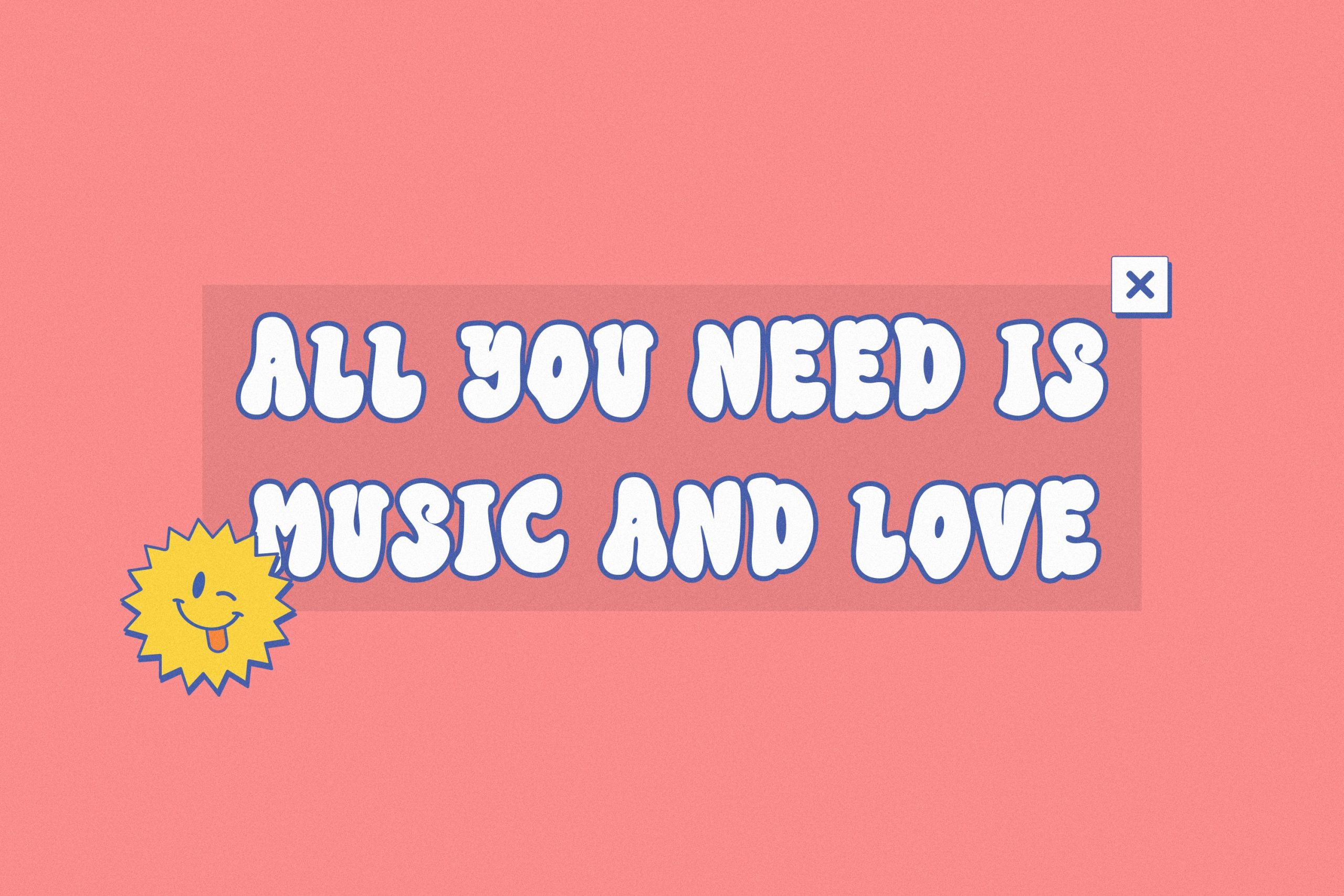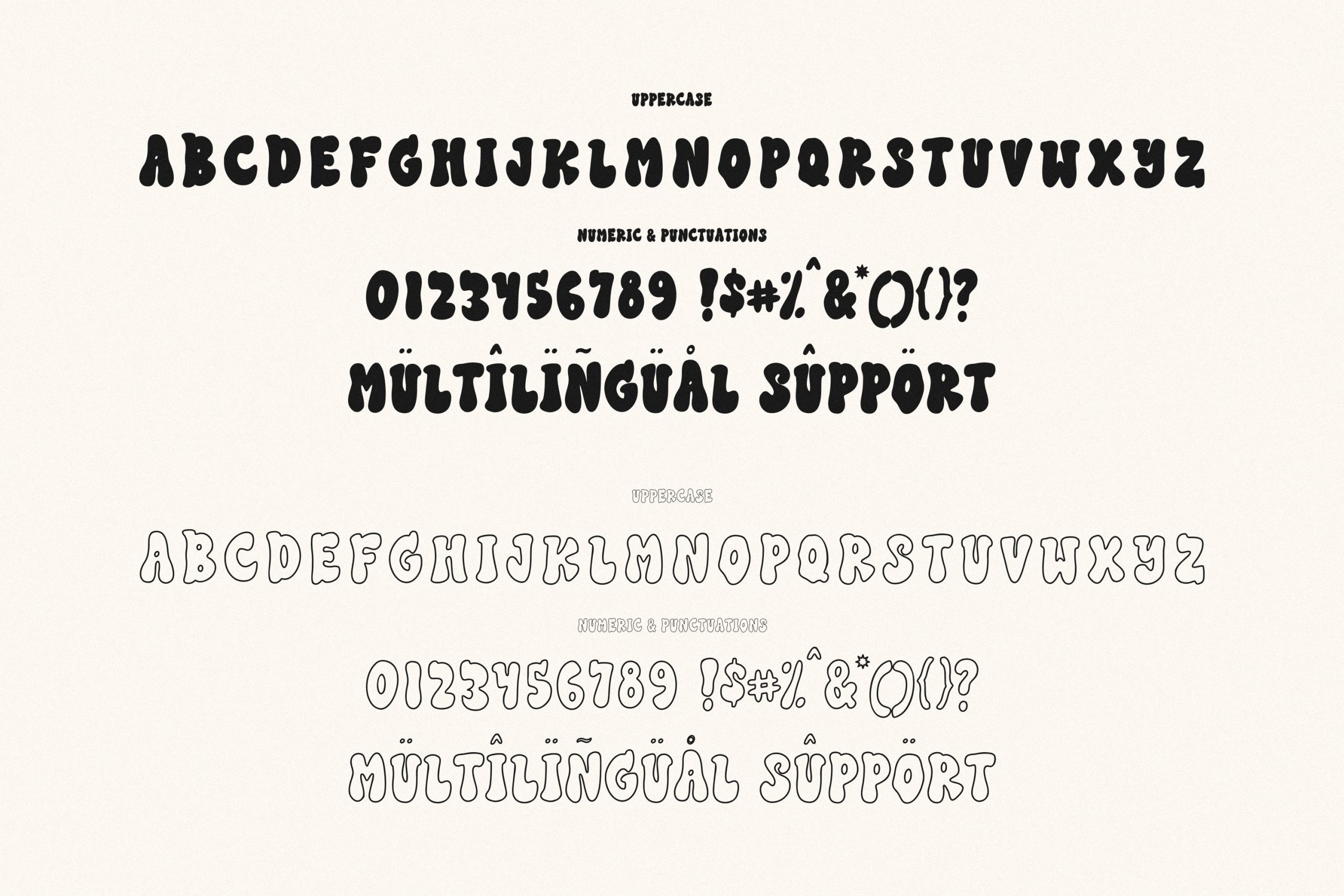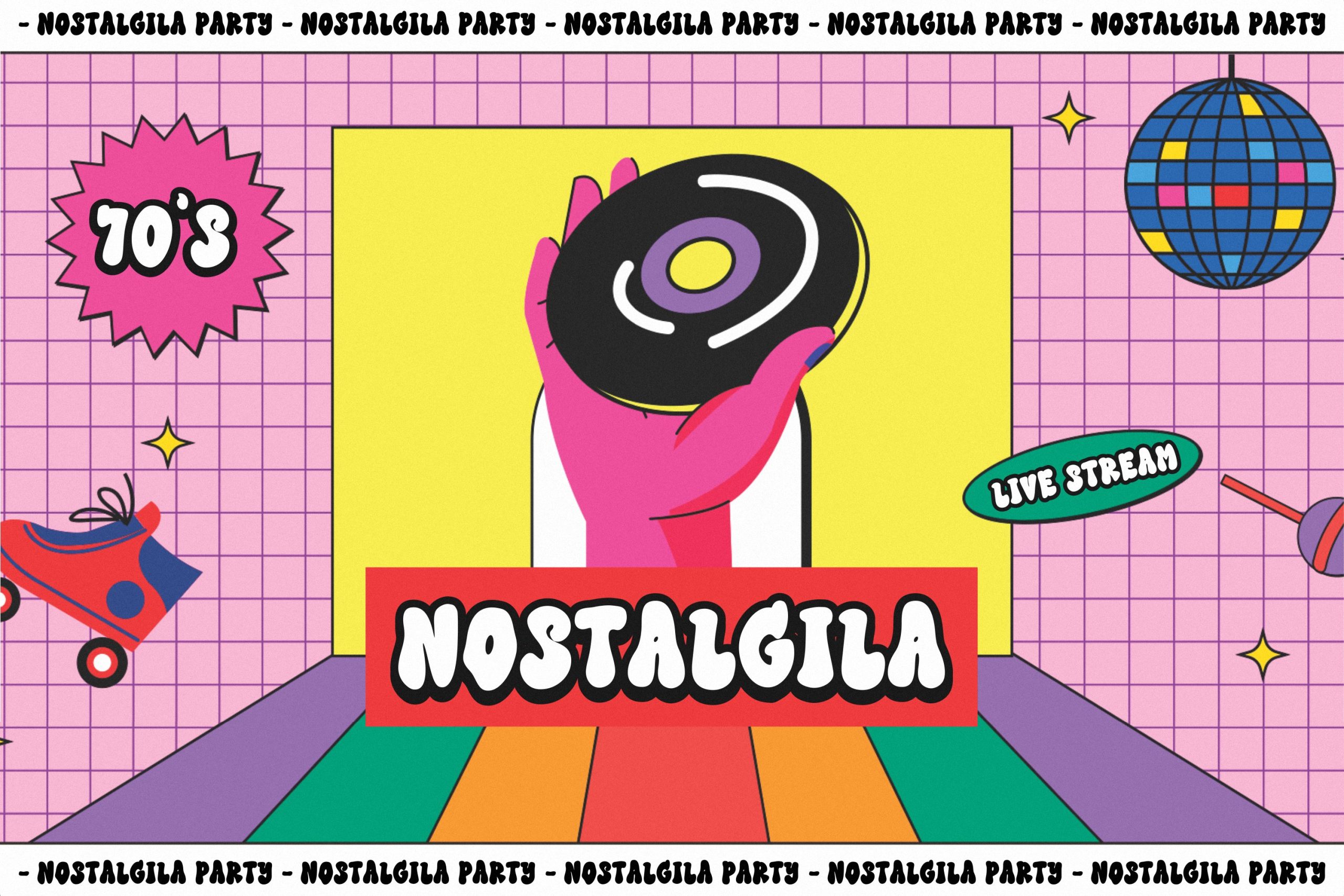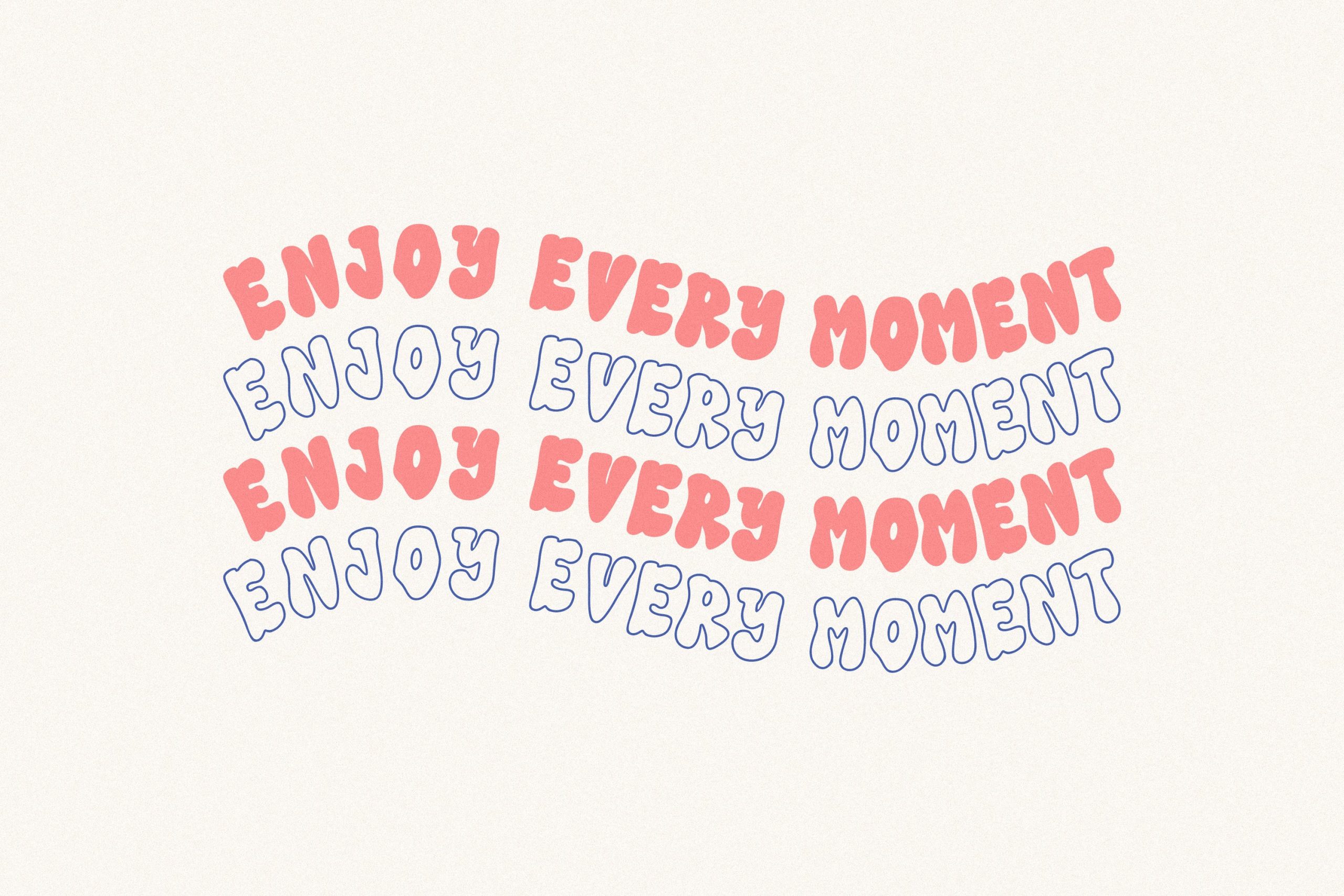
Seventies Groovy Font
Seventies Groovy Font Is a A Two Style Retro Groovy Font. Seventies Groovy is perfect for product packaging, branding project, megazine, social media, wedding, or just used to express words above the background.